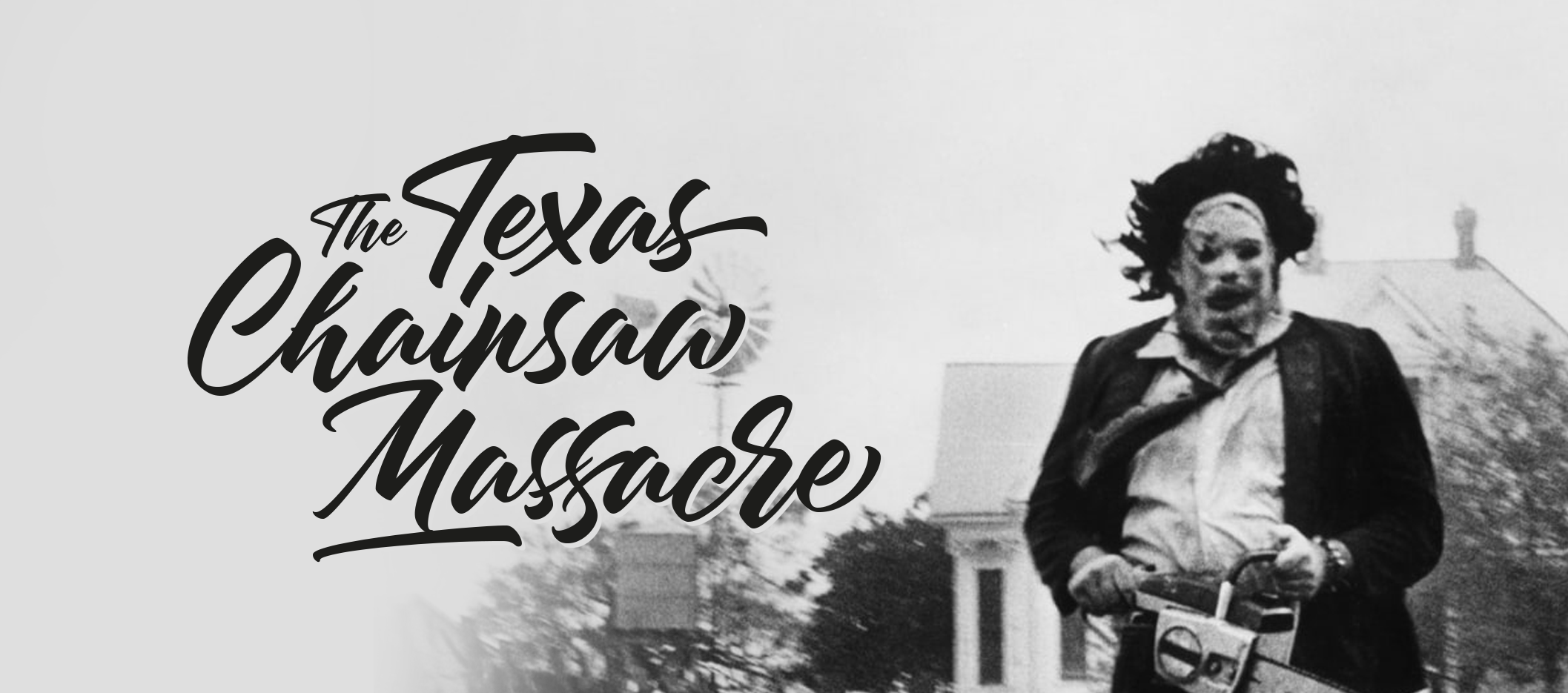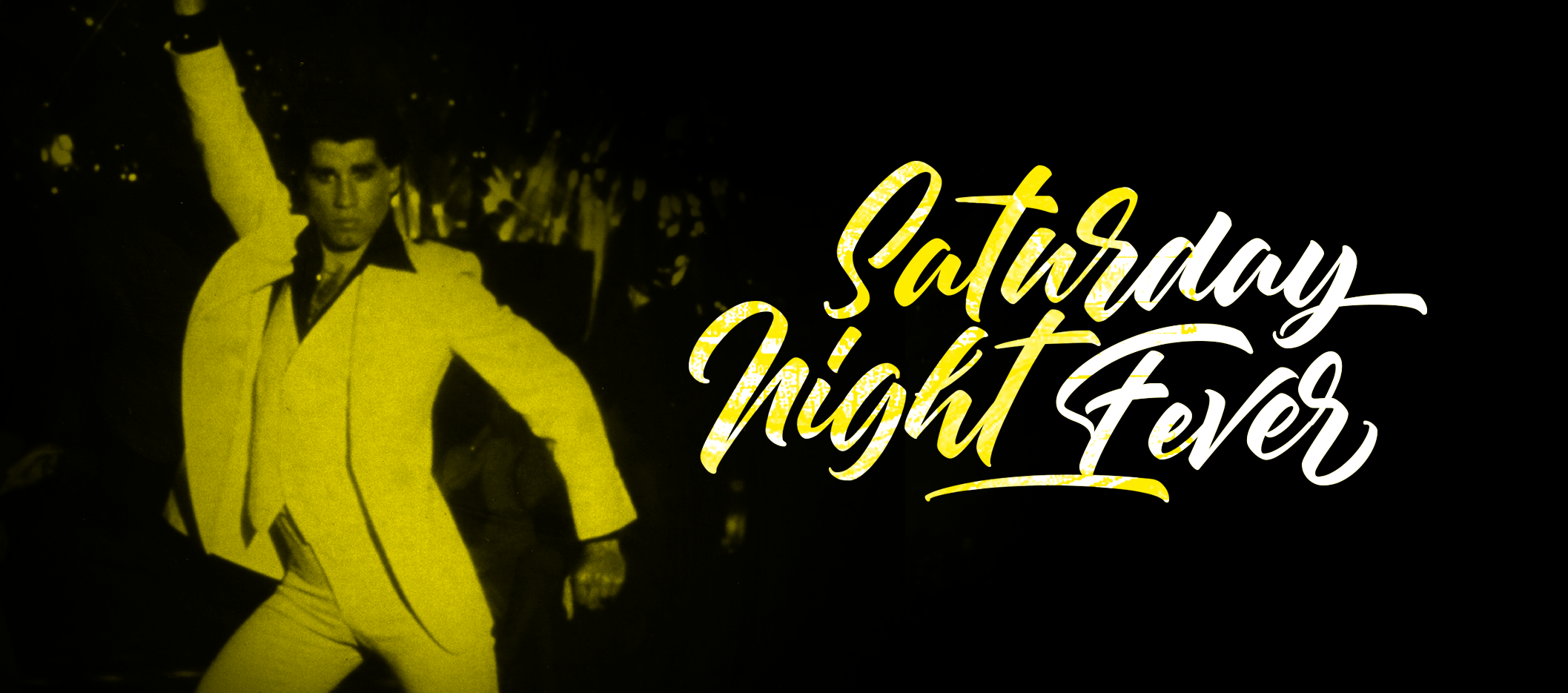
Julietta Script Font
Julietta is a cool script font made from the lettering work of Stéphane Lopes. The full commercial version includes a huge set of 70 alternates, contextual ligatures and underlining.